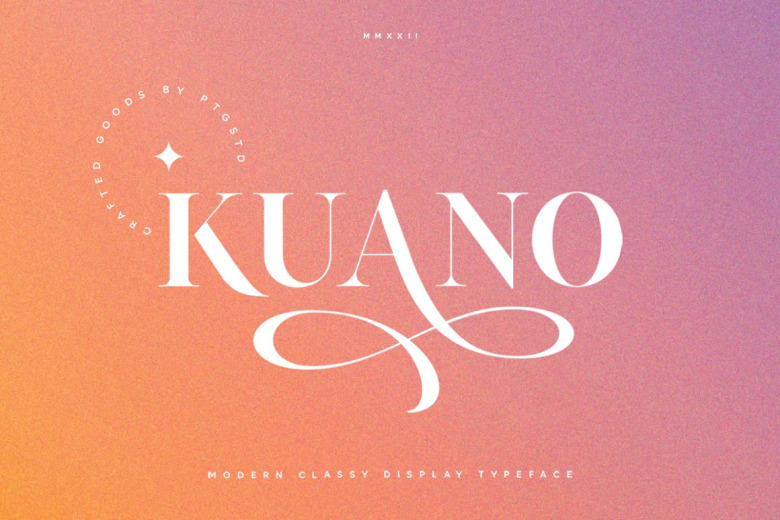
Kuano Font
The Kuano is a classy display serif font character auction includes modern and ligature characters. Kuano Font is perfect for many projects: logo, wedding designs, social media posts, advertisements, product packaging, product designs, label font, photography watermark and so much more.
Kuano Serif Font